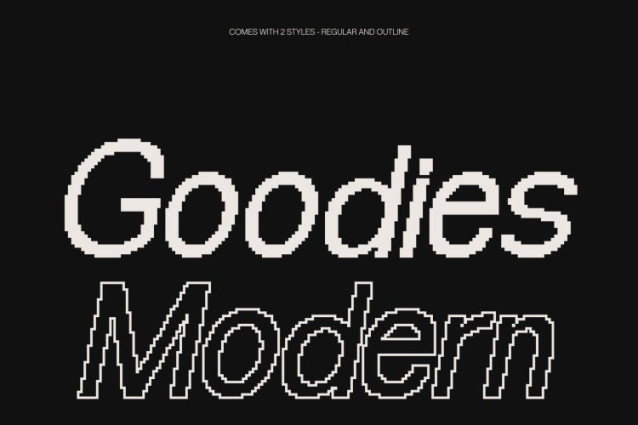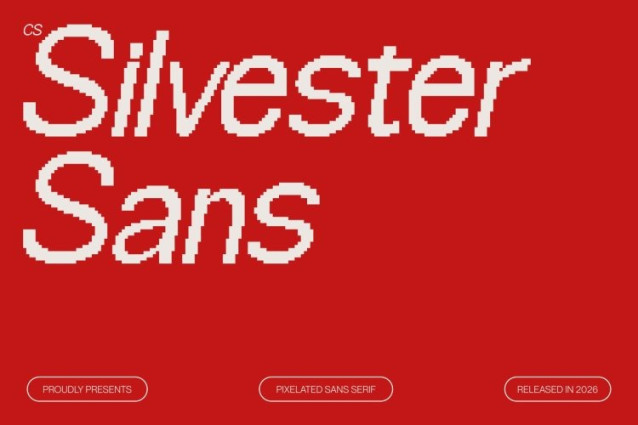
CS Silvester Pixel Font
CS Silvester Pixel Font This is a geometric sans serif font built on clarity, balance, and refined pixel detailing. Its streamlined forms and carefully measured proportions reflect a contemporary aesthetic rooted in Swiss-inspired design principles. The addition of subtle pixel accents introduces a modern digital sharpness while maintaining its clean, professional tone.
Functional Structure with Digital Accuracy
Designed with consistent proportions and precise construction, this font performs reliably across print and digital platforms. Its crisp edges and geometric foundation ensure visual stability, while the pixel nuance adds a distinctive yet restrained character. The result is typography that feels structured, intelligent, and forward-thinking.
Minimalist Aesthetic with Contemporary Edge
Perfect for minimalist compositions, this font allows typography to stand confidently at the forefront. Its uncluttered shapes communicate trust, clarity, and sophistication. The pixel influence remains subtle, enhancing its modern identity without compromising simplicity.
Versatile for Branding and Modern Design
From web interfaces and corporate branding to posters, logos, and editorial layouts, this font adapts effortlessly. Its geometric strength combined with digital precision makes it ideal for designers seeking a clean, Swiss-inspired typeface with a refined pixel twist where modern minimalism meets technological clarity.